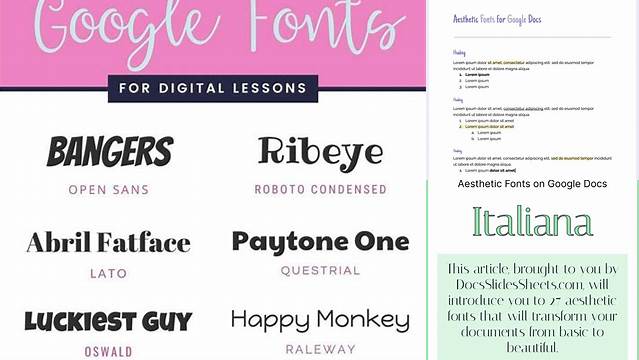
Best Aesthetic Fonts For Google Docs
Hey guys, ever wondered how some Google Docs just pop and look super professional or delightfully charming, while others… well, they just look like, you know, a document? The secret, my friends, often lies in the fonts! Choosing the best aesthetic fonts for Google Docs isn't just about making things pretty; it's about making your content more engaging, readable, and reflective of your personal or brand style. Whether you're working on an important report, a creative writing piece, a snazzy resume, or just a simple note, the right font can totally transform your message. We're going to dive deep into the world of Google Docs fonts, exploring everything from elegant serifs to playful scripts, and show you how to pick the perfect ones to make your documents truly shine. So, let's ditch the boring default and explore some seriously stylish options that will elevate your Google Docs game!
Discovering the Perfect Aesthetic Fonts for Google Docs
Finding the perfect aesthetic fonts for Google Docs can sometimes feel like searching for a needle in a haystack, especially with the vast ocean of options out there. But trust me, guys, it's a journey worth taking! The key here is understanding what 'aesthetic' truly means for your specific document. Are you going for a minimalist, clean look? Or perhaps something more vintage, whimsical, or bold? Google Docs, thankfully, offers a surprisingly robust library of fonts that can cater to almost any vibe you're aiming for. When we talk about discovering the perfect aesthetic fonts, we're not just scrolling through; we're actively thinking about the purpose of our document, its target audience, and the overall mood we want to convey. For instance, a font that looks fantastic on a creative blog post might not be the best fit for a formal business proposal, right?
Why Aesthetic Fonts Matter in Your Google Docs
Alright, let's get real for a sec: why do aesthetic fonts matter in your Google Docs? I mean, isn't the content itself the most important thing? Absolutely, the content is king, but hear me out, guys – presentation is the queen, and she makes the king look even better! Think about it: when you pick up a beautifully designed book or visit a website with a gorgeous layout, doesn't it make you more inclined to stick around and absorb the information? The same principle applies to your Google Docs. Aesthetic fonts aren't just decorative; they play a crucial role in how your document is perceived and engaged with.
First off, they significantly enhance readability. A well-chosen, aesthetic font can make your text easier on the eyes, reducing fatigue, especially in longer documents. If your readers are struggling to decipher tiny, cramped, or overly decorative letters, they're more likely to give up. Secondly, aesthetic fonts convey professionalism and attention to detail. Using default fonts for everything can sometimes make your work look a bit… generic. By taking the time to select specific aesthetic fonts, you're telling your audience that you care about the finer points, which boosts your credibility. Thirdly, fonts help establish a mood or tone. A sleek, modern sans-serif can make your document feel contemporary and innovative, while a classic serif might lend an air of authority and tradition. A playful script could make a casual invitation feel warm and inviting. Lastly, for those of us building a personal brand or a business, consistent use of aesthetic fonts contributes to brand recognition. Imagine all your documents, presentations, and even social media posts using a cohesive set of fonts – it creates a powerful, unified visual identity. So, yeah, aesthetic fonts really do matter. They're not just superficial; they're strategic tools for effective communication and making a lasting impression with your Google Docs.
Top Picks: Elegant Serif Fonts for Professional Polish
When we're talking about achieving professional polish and a touch of elegance in your Google Docs, guys, nothing quite beats a classic serif font. These are the fonts with those little 'feet' or decorative strokes at the ends of the letters, and they've been a staple of formal writing for centuries. For anyone looking for the best aesthetic fonts for Google Docs that exude authority, tradition, and readability, serifs are your go-to. They are often perceived as sophisticated and trustworthy, making them perfect for academic papers, official reports, resumes, and any document where credibility is paramount.
One of my absolute top picks for an elegant serif in Google Docs is Lora. Lora offers a beautiful, contemporary twist on traditional serifs. It’s got a lovely rhythm, great readability, and an air of gentle sophistication that works wonderfully for both body text and headings. It’s not as stiff as some older serifs, making it feel fresh yet classic. Another fantastic option is Merriweather. This font was specifically designed for readability on screens, which is a huge bonus for Google Docs users. It's robust and clear, with a friendly yet professional feel. It has excellent legibility, even at smaller sizes, and its slightly condensed form means you can fit more words on a line without sacrificing clarity. For something with a bit more historical gravitas, you might consider Playfair Display. While often used for headlines due to its high contrast and elegant curves, it can also work beautifully for subheadings or even short paragraphs where you want to make a strong, refined statement. Its delicate yet strong appearance gives a luxurious feel. And, of course, the ever-reliable Georgia and Times New Roman are always there if you need a very standard, universally recognized professional look, but Lora and Merriweather really bring that extra oomph of modern elegance to your aesthetic Google Docs. These choices will ensure your documents not only look professional but also have a distinct, polished aesthetic.
Modern Minimalism: Sans-Serif Fonts for Clean Designs
Alright, if your vibe is sleek, clean, and utterly contemporary, then you, my friends, are all about modern minimalism, and sans-serif fonts are going to be your absolute best friends for achieving that look in Google Docs. When we talk about the best aesthetic fonts for Google Docs in the minimalist category, we're focusing on those beautiful fonts that lack the 'feet' or decorative strokes (serifs) at the ends of their letters. This absence creates a clean, uncluttered appearance that is incredibly versatile and super readable, especially on screens. Sans-serifs are often associated with modernity, efficiency, and a straightforward approach, making them perfect for websites, digital presentations, and any document where a crisp, no-fuss aesthetic is desired.
Enhancing Readability: Aesthetic Fonts That Are Easy on the Eyes
Let's be real, guys: an aesthetic font is only truly